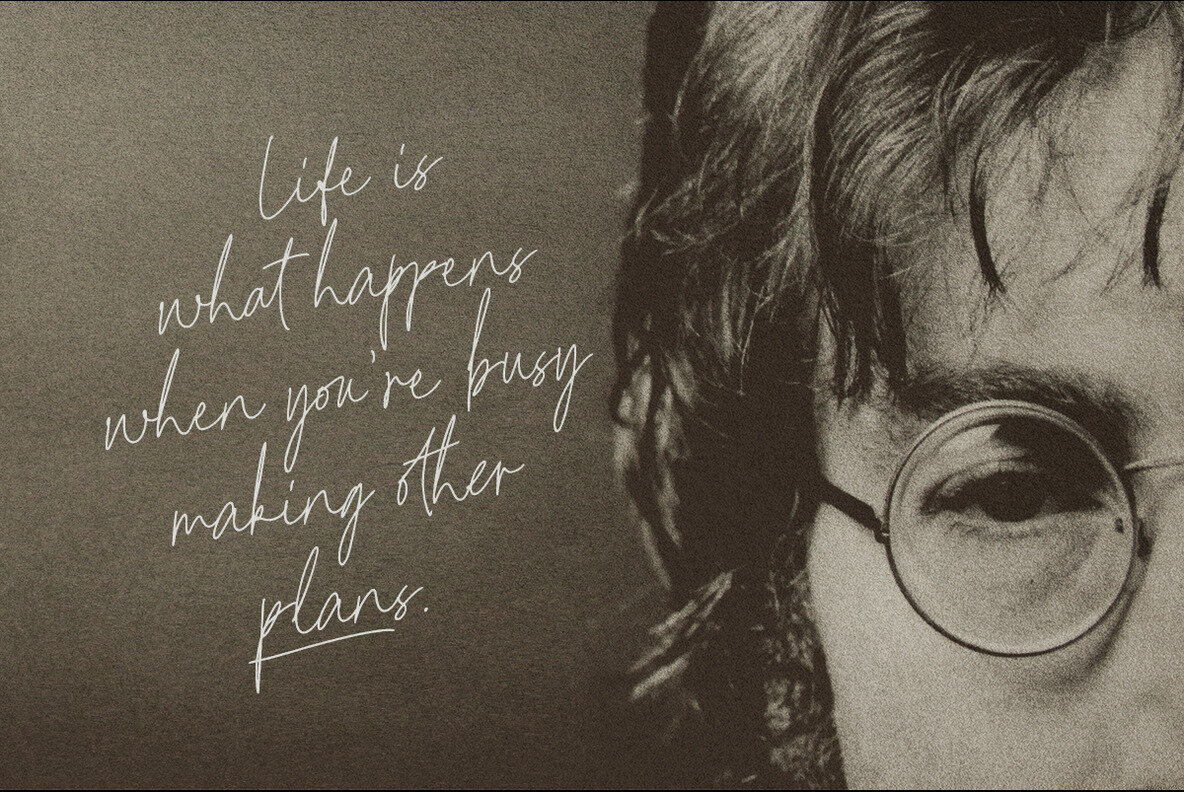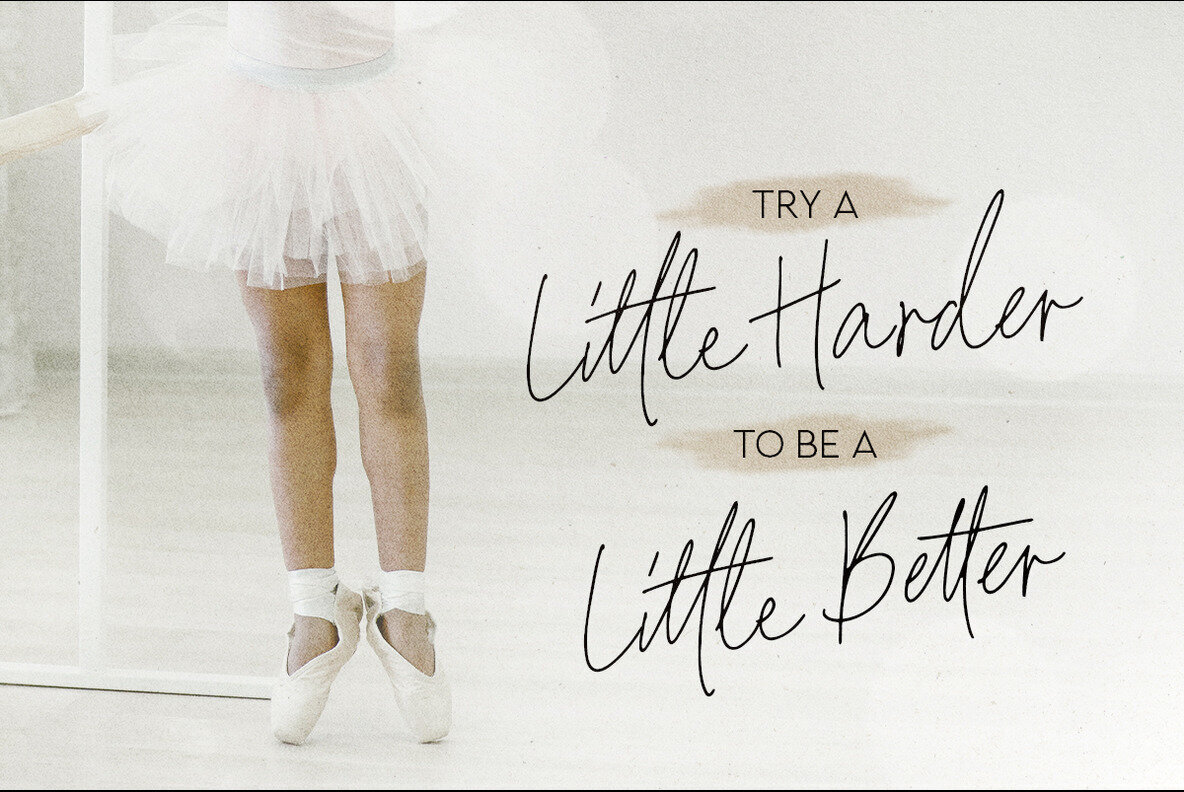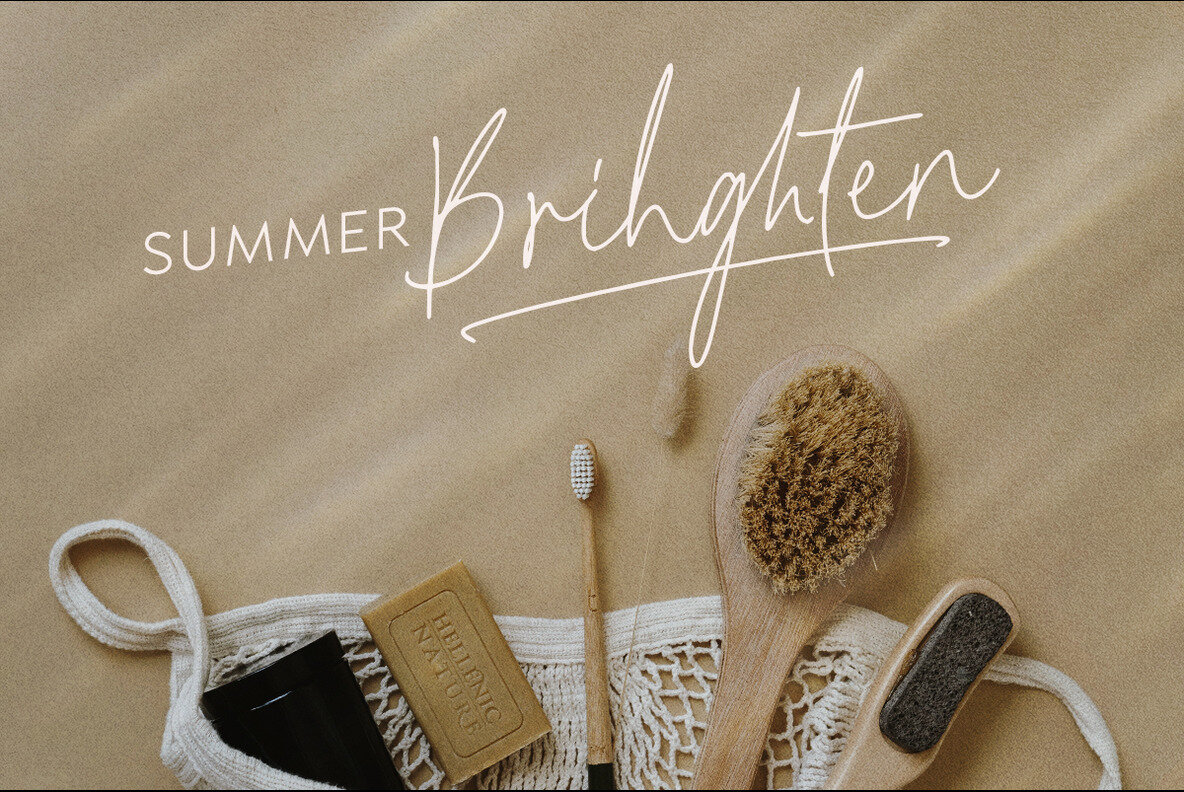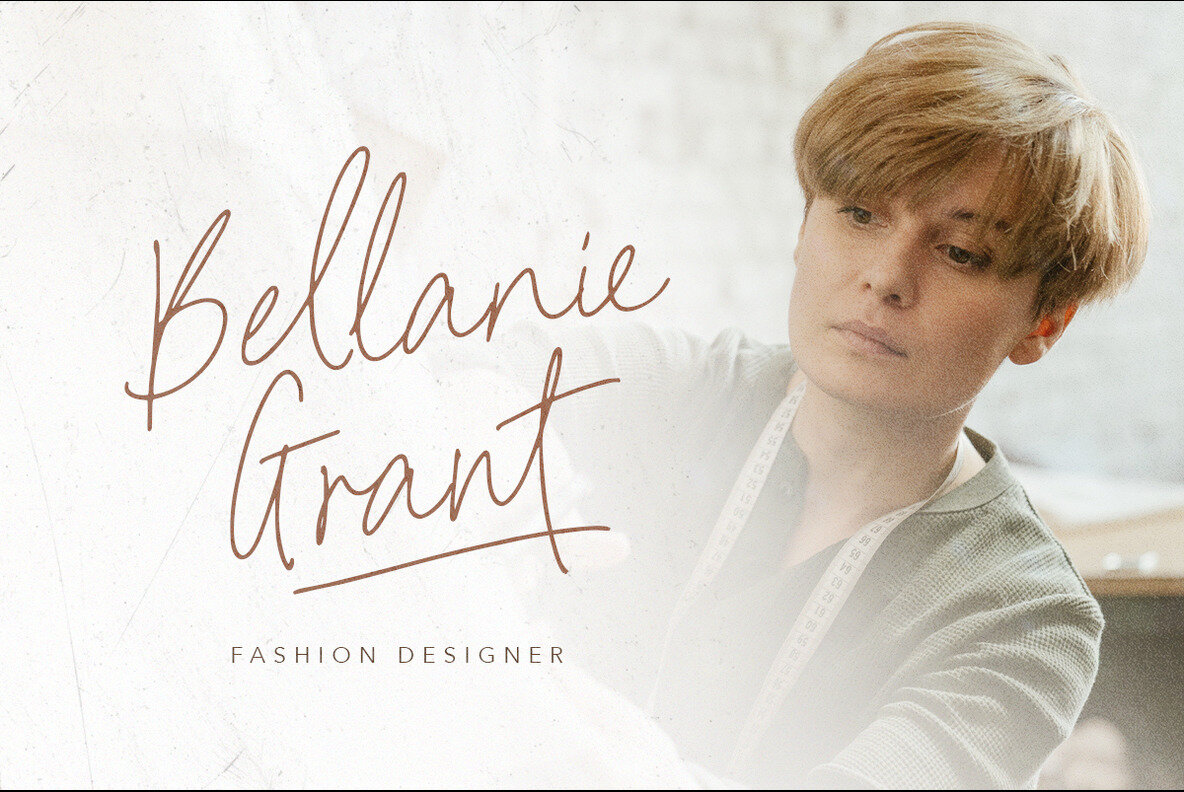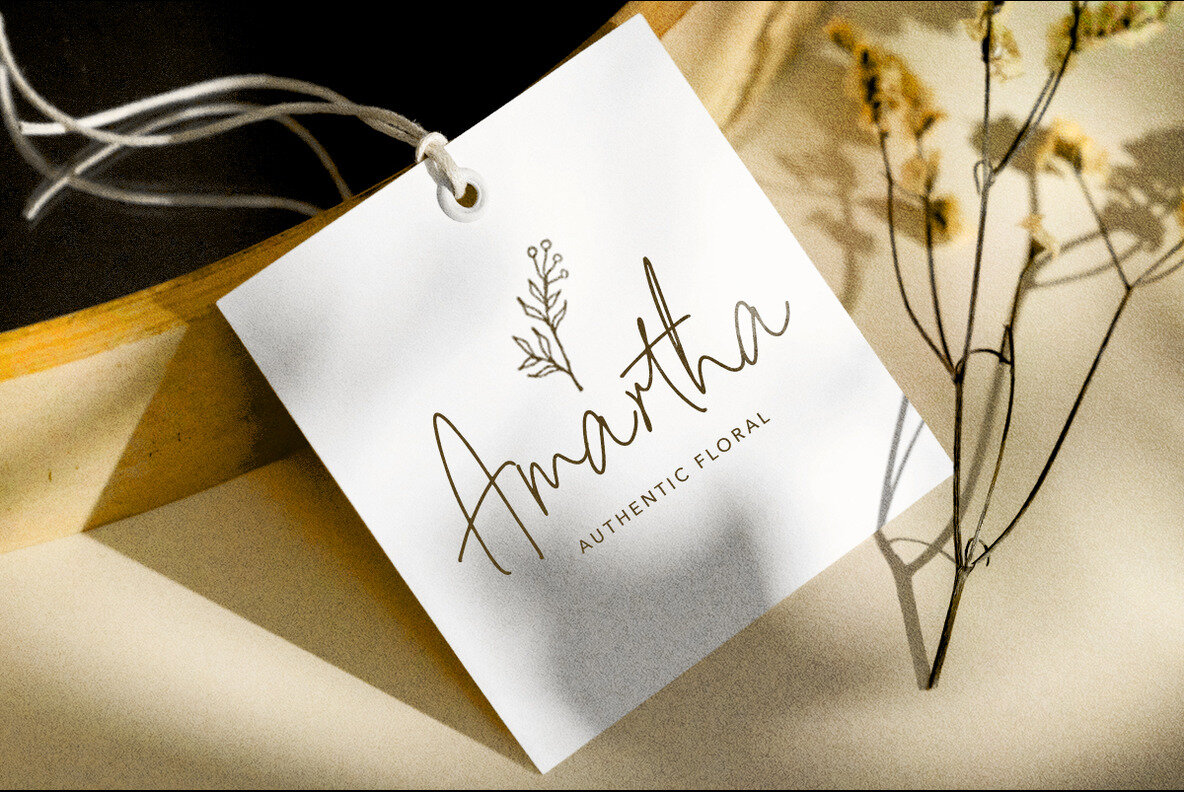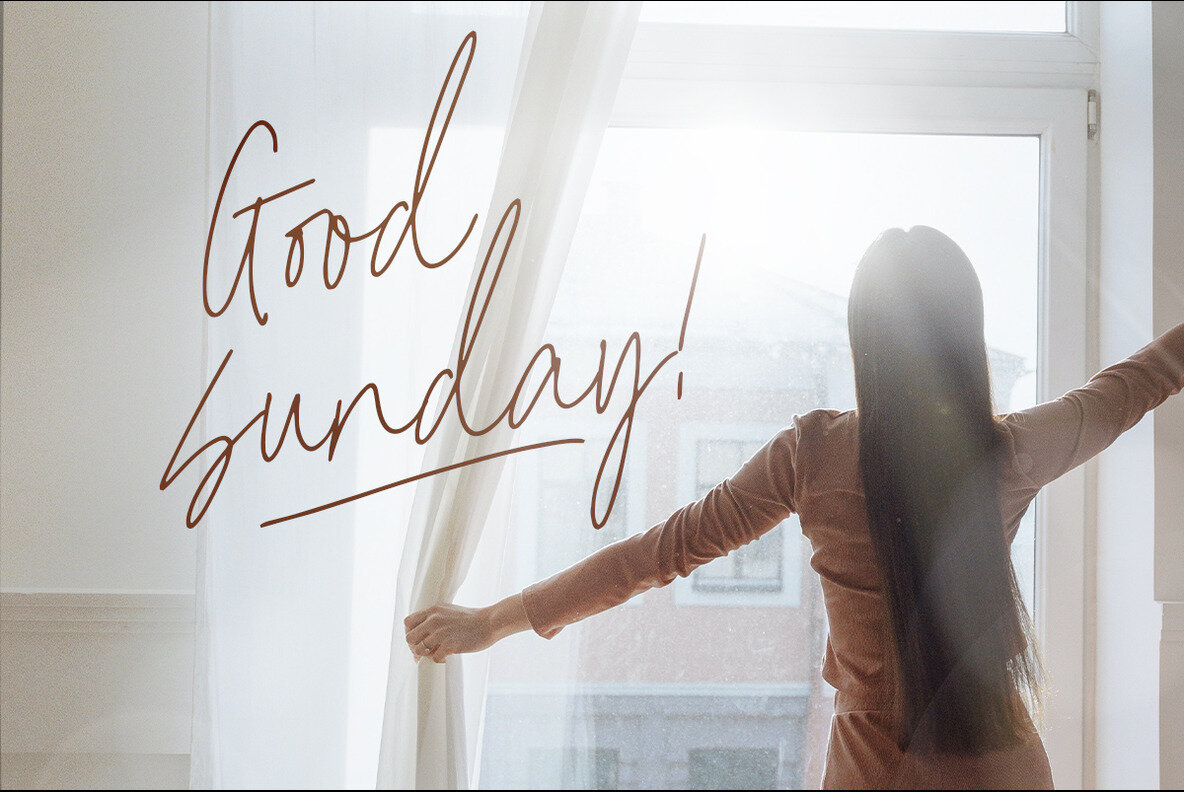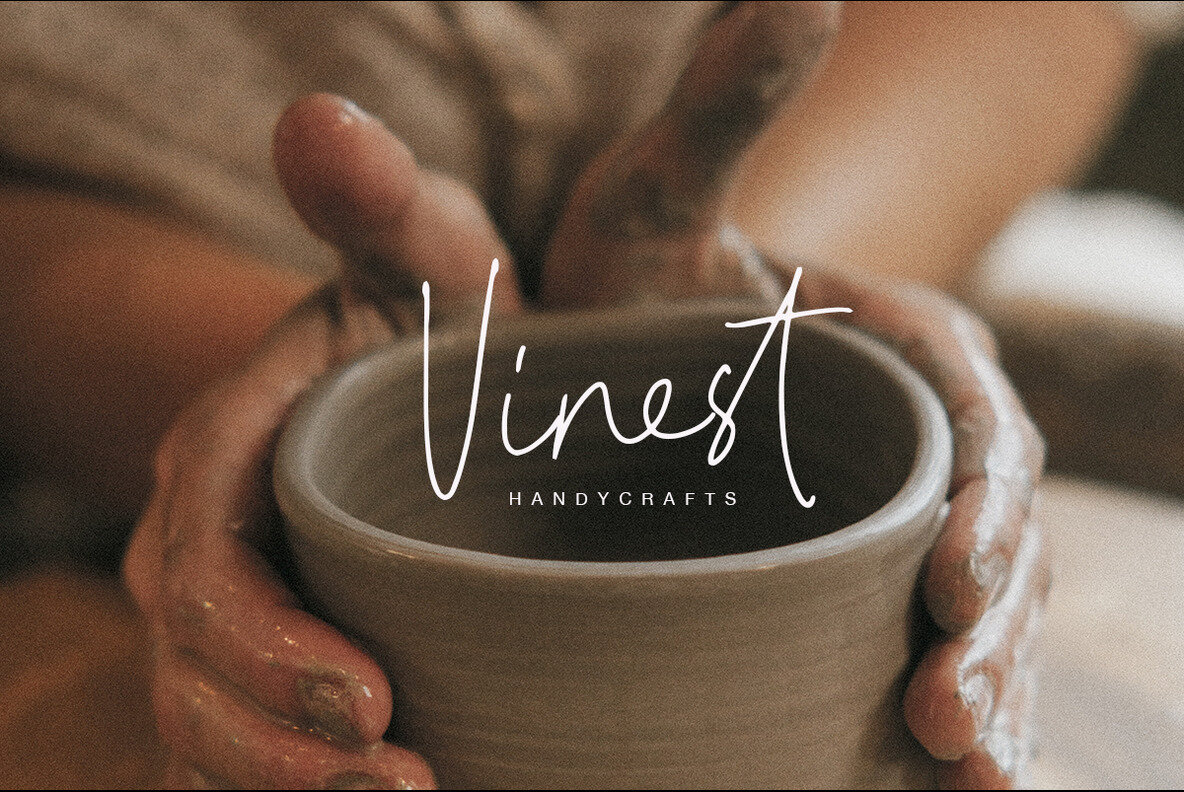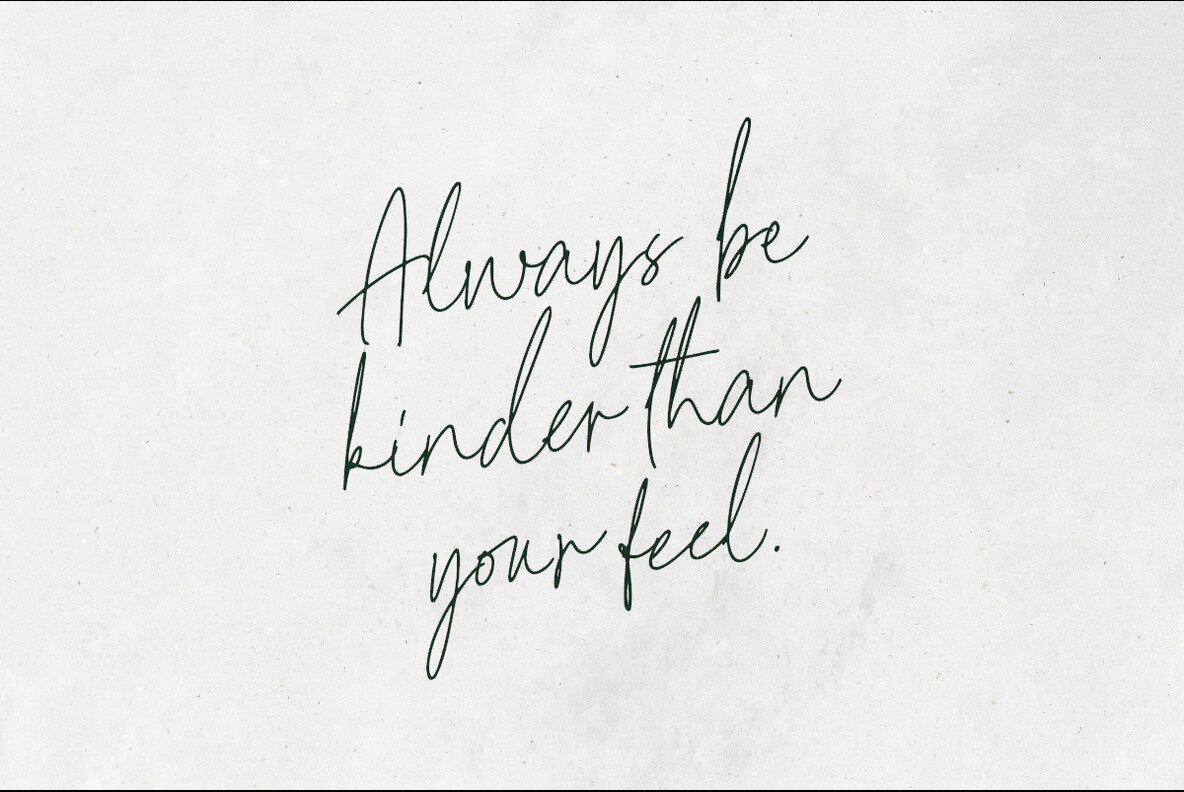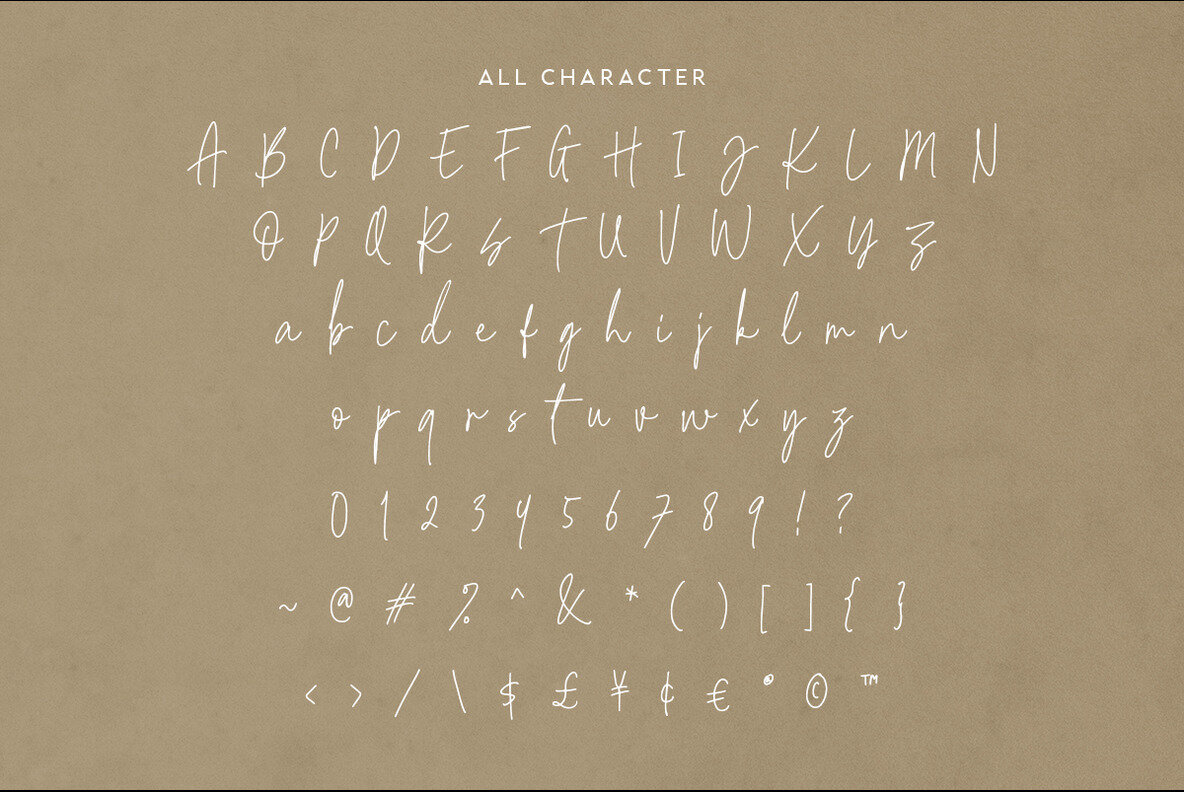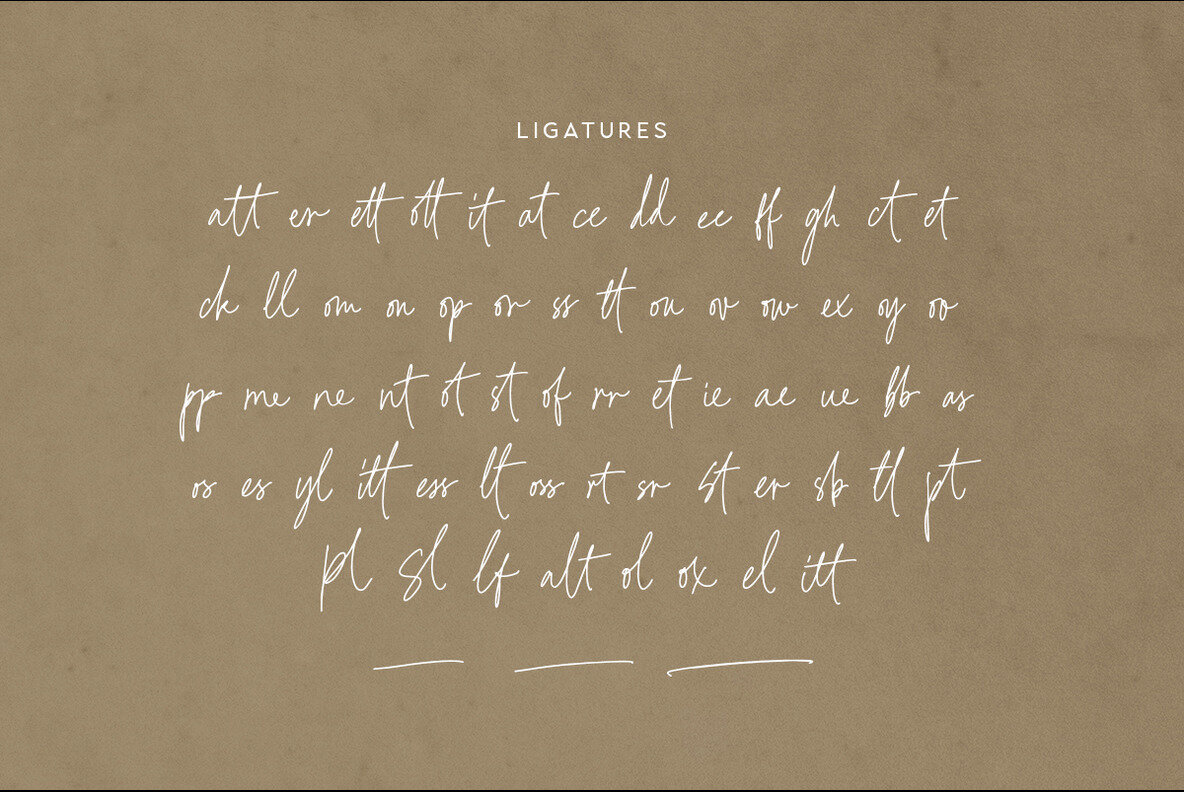
Kelly Blossom Font
Kelly Blossom Regular
Kelly Blossom is a contemporary handwritten script font, designed to add a touch of elegance to any project. Perfect for quotes, branding, or wedding invitations, this font features a variety of ligatures that ensure your text appears natural and unique. Kelly Blossom also supports multiple languages, making it versatile for diverse applications.Kelly Blossom: Modern Handwritten Script with Ligatures